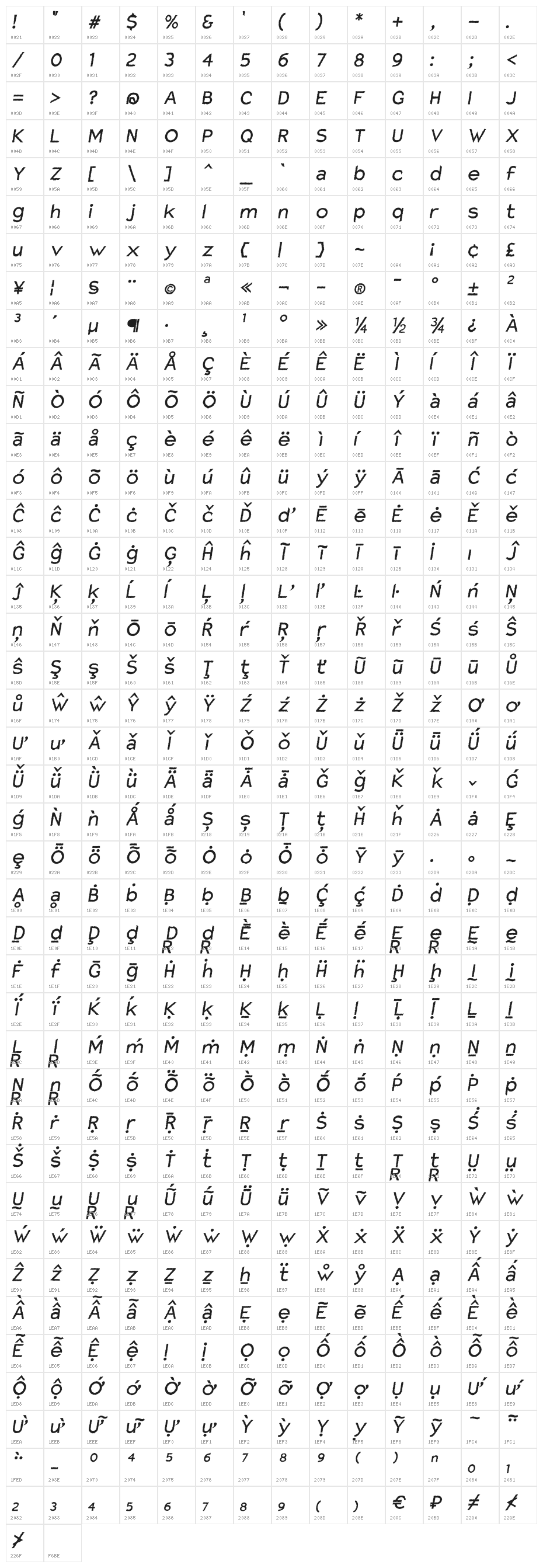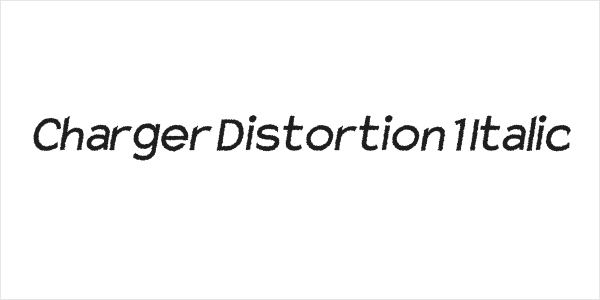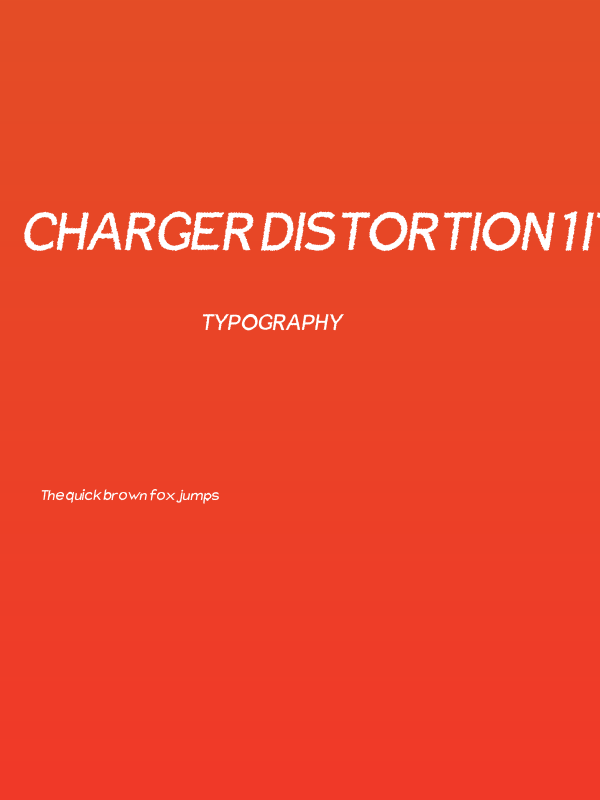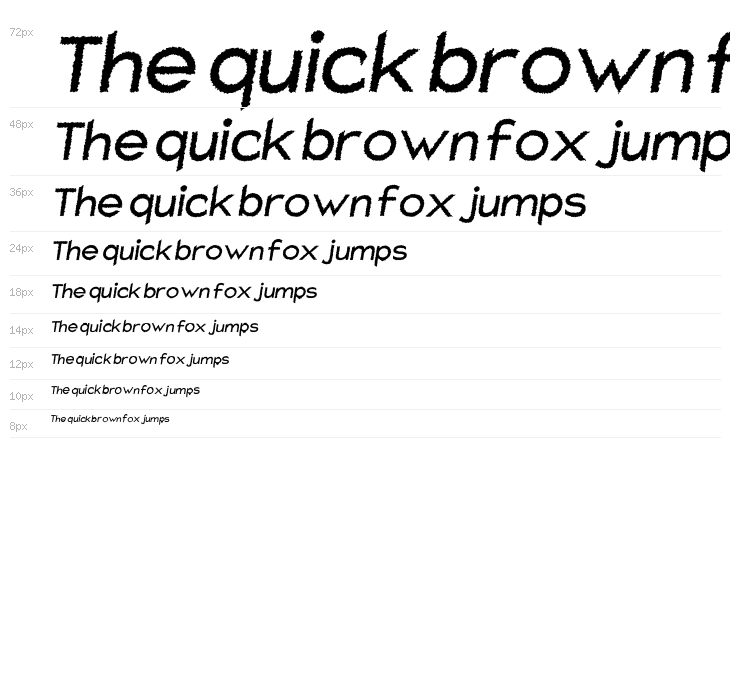
Charger Distortion 1 Italic Font
Charger Distortion 1 Italic Description
This font features a dynamic and energetic style with a distinct italic slant, giving it a sense of motion and urgency. The characters are slightly distorted, creating a unique texture that adds a modern twist to the traditional italic form. The uppercase and lowercase letters maintain a consistent style, with rounded edges and a slight tilt that enhances readability. Numbers and special characters are designed to match the overall aesthetic, ensuring uniformity across all text elements. This font's playful yet professional appearance makes it versatile for various design applications.